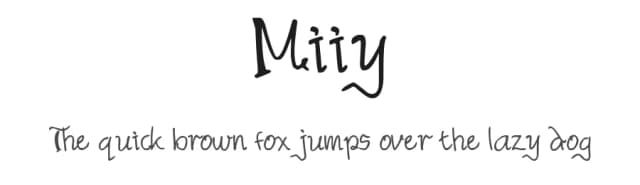
About Miiythin Font
MiiyThin is a handmade font, suitable for writing a reading title, magazine, daily notes, and beautiful words.
Miiythin Font is a script font that shines as a display or heading face. Pair it with a clean sans-serif or serif font for body text β the contrast creates a clear hierarchy while the two styles stay balanced and easy to read.
Miiythin Font